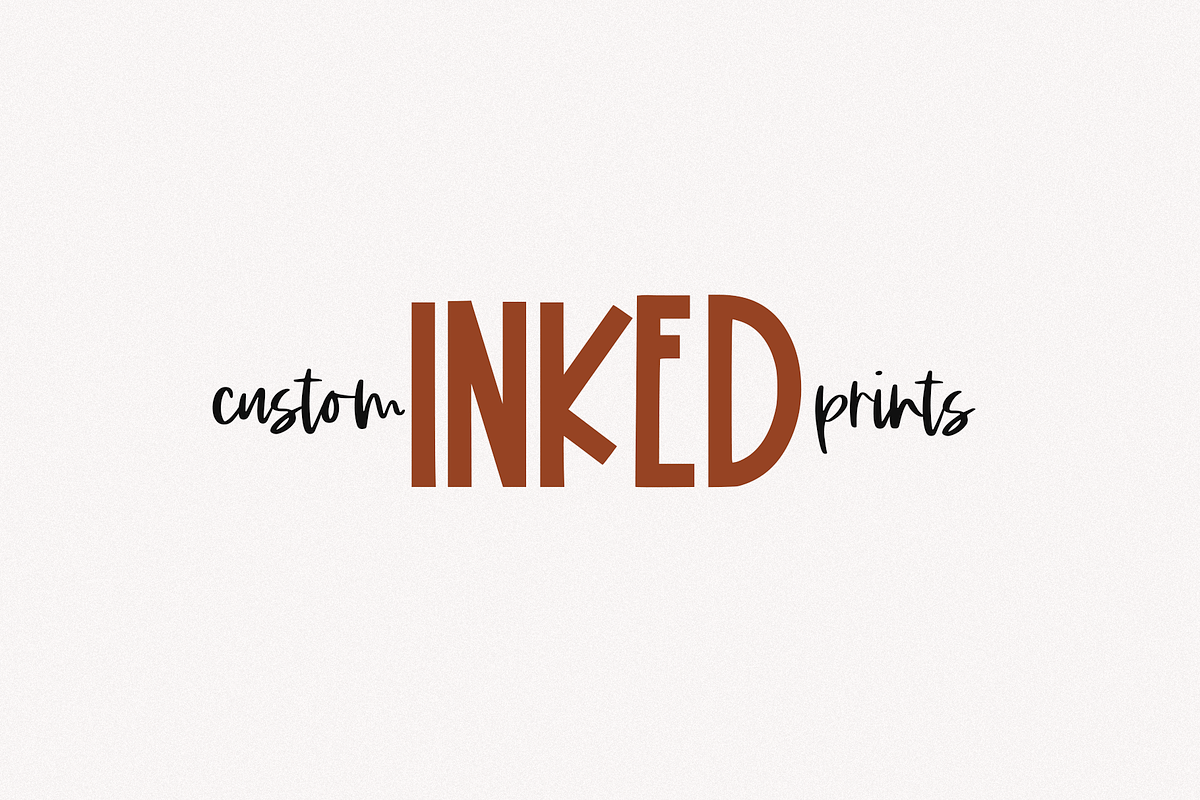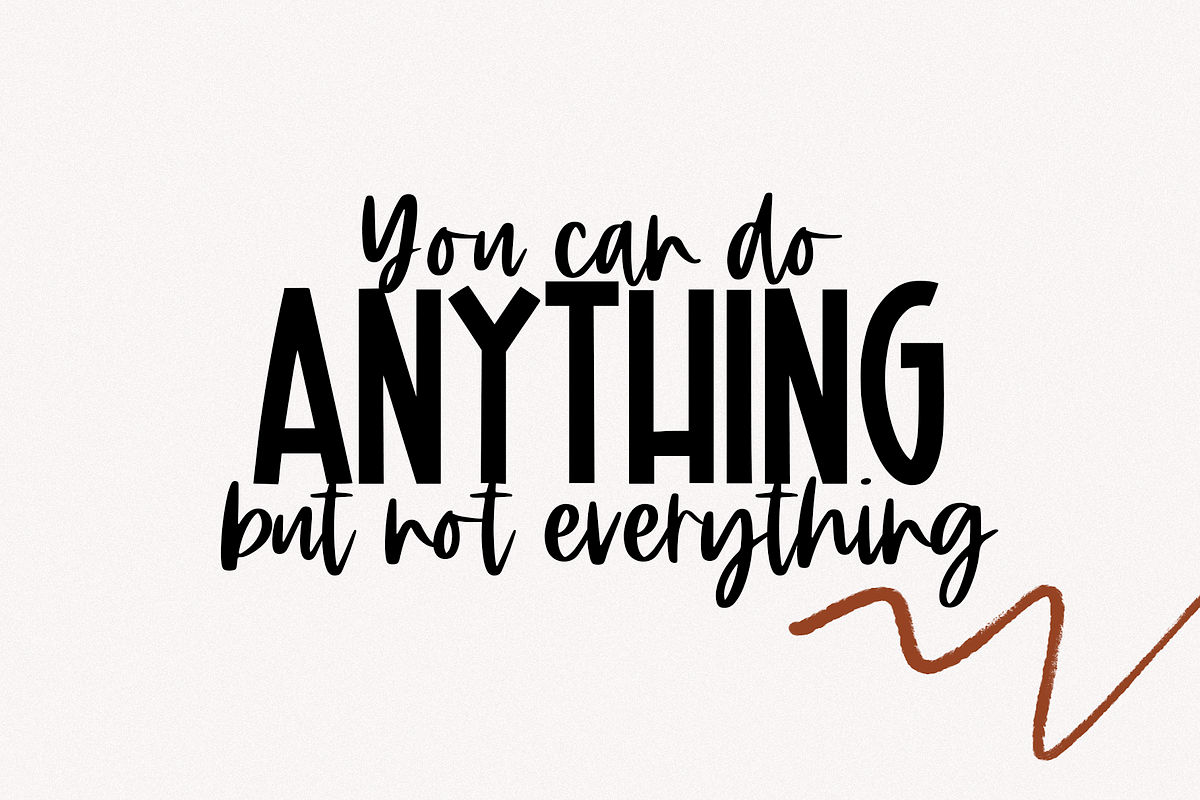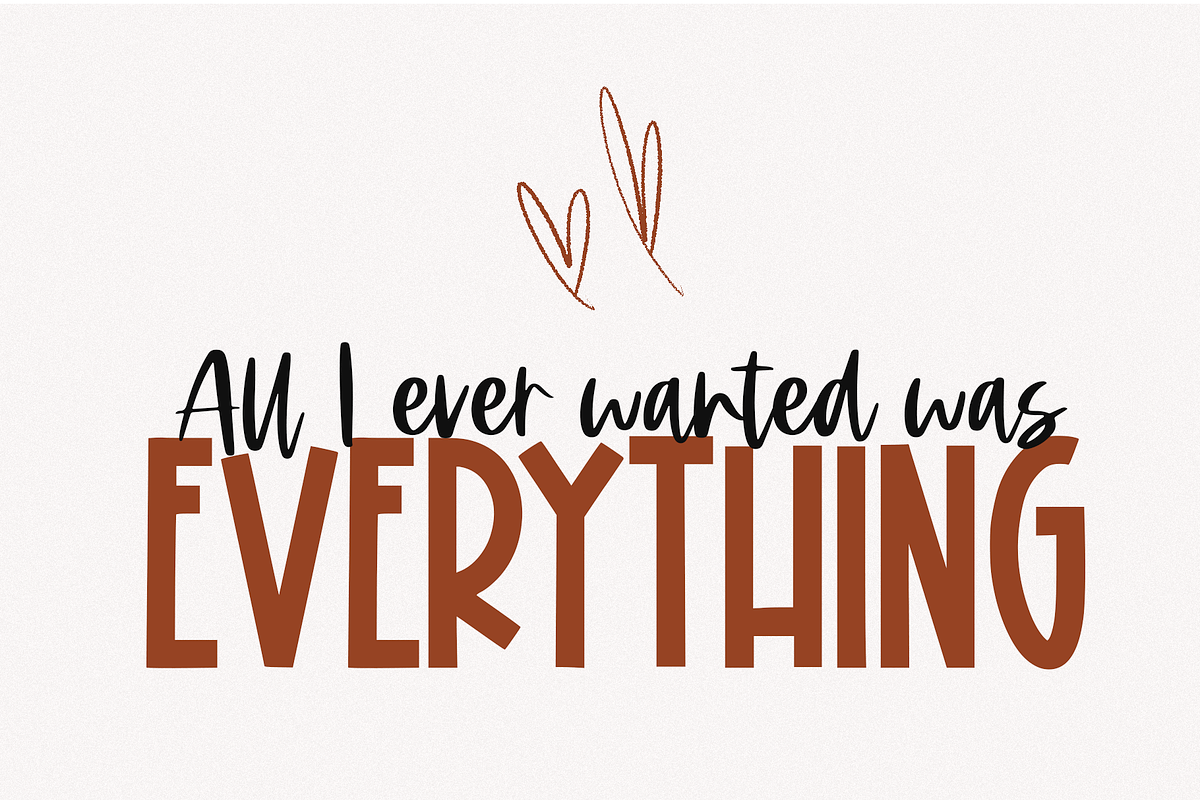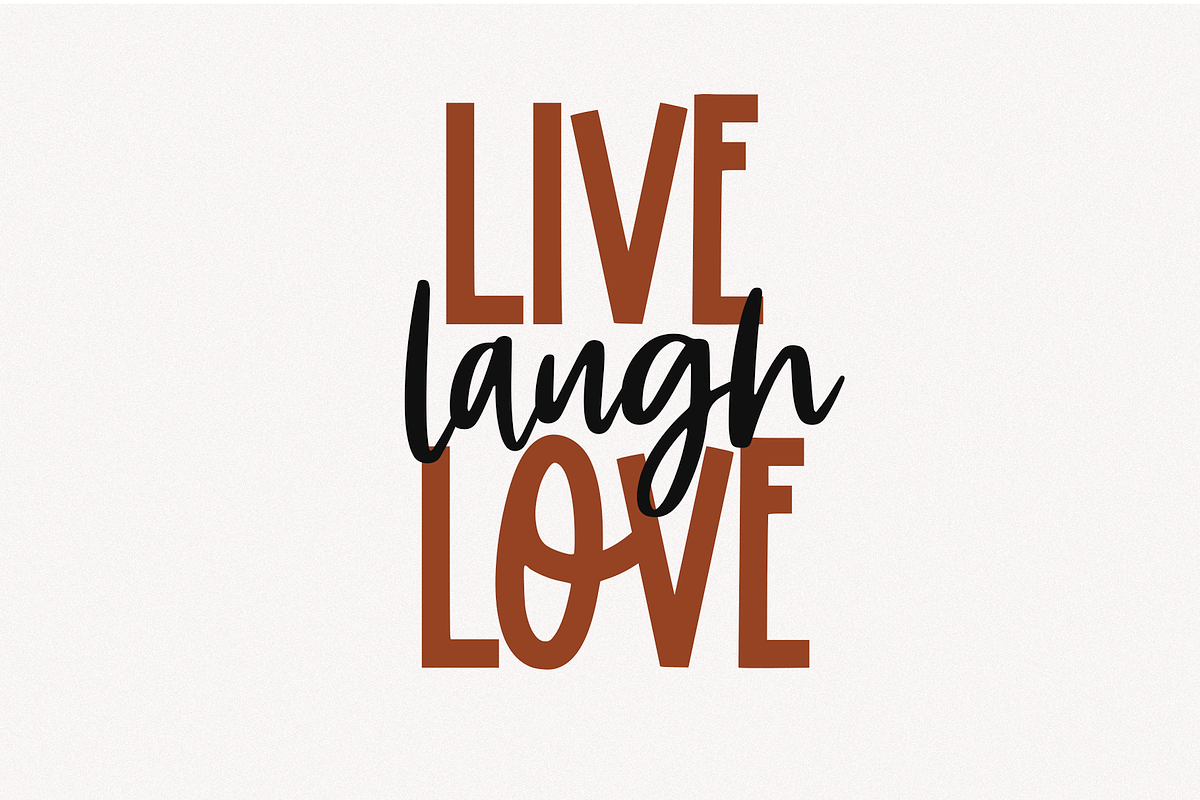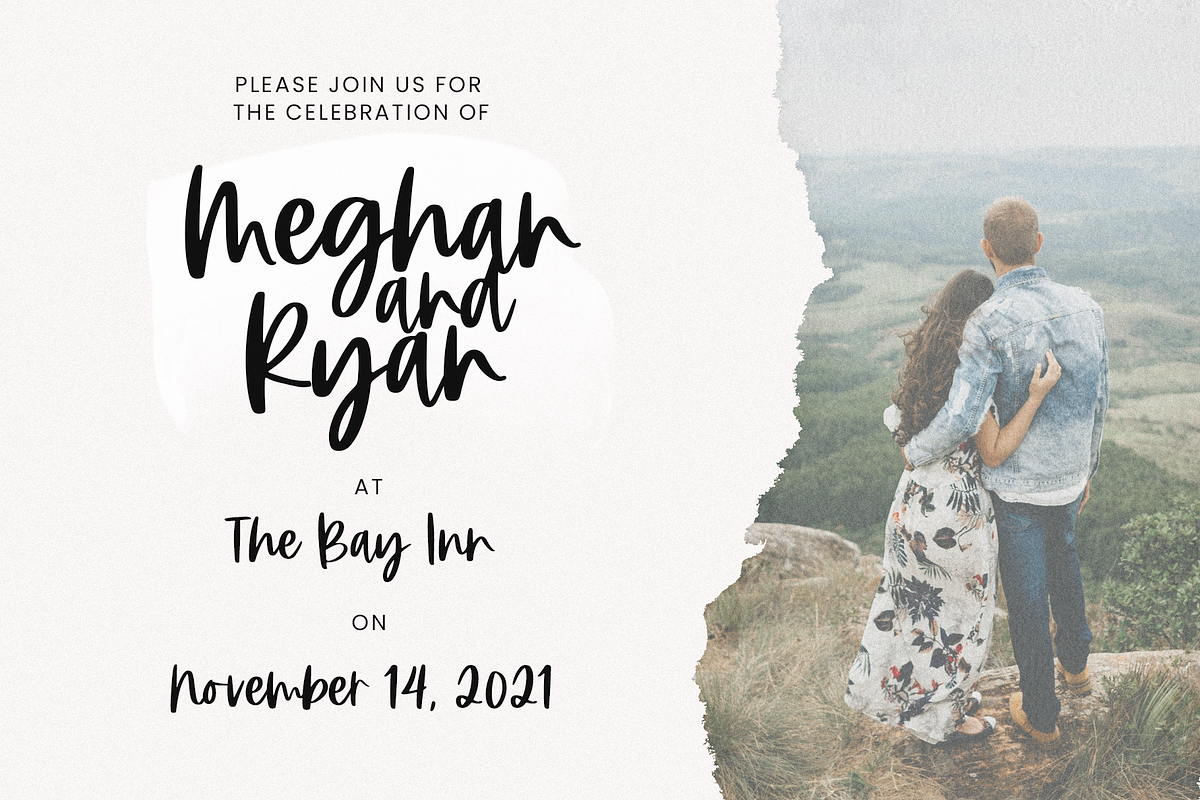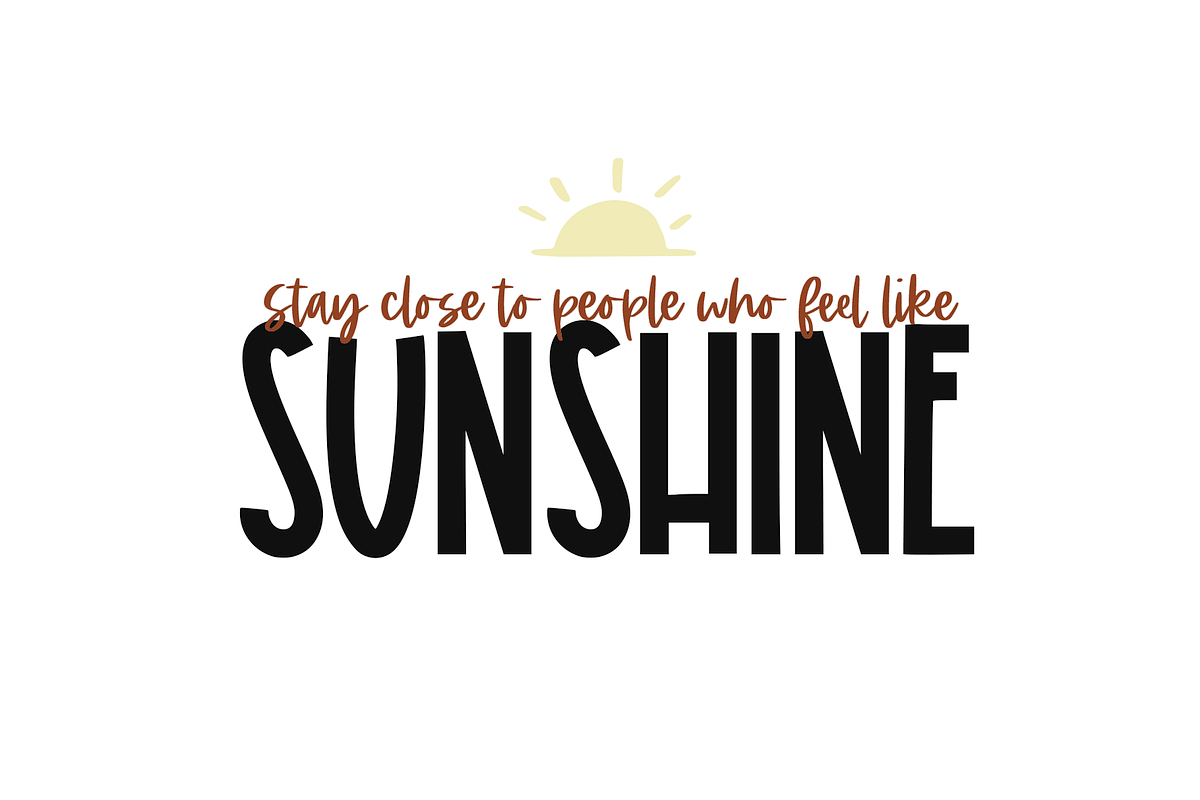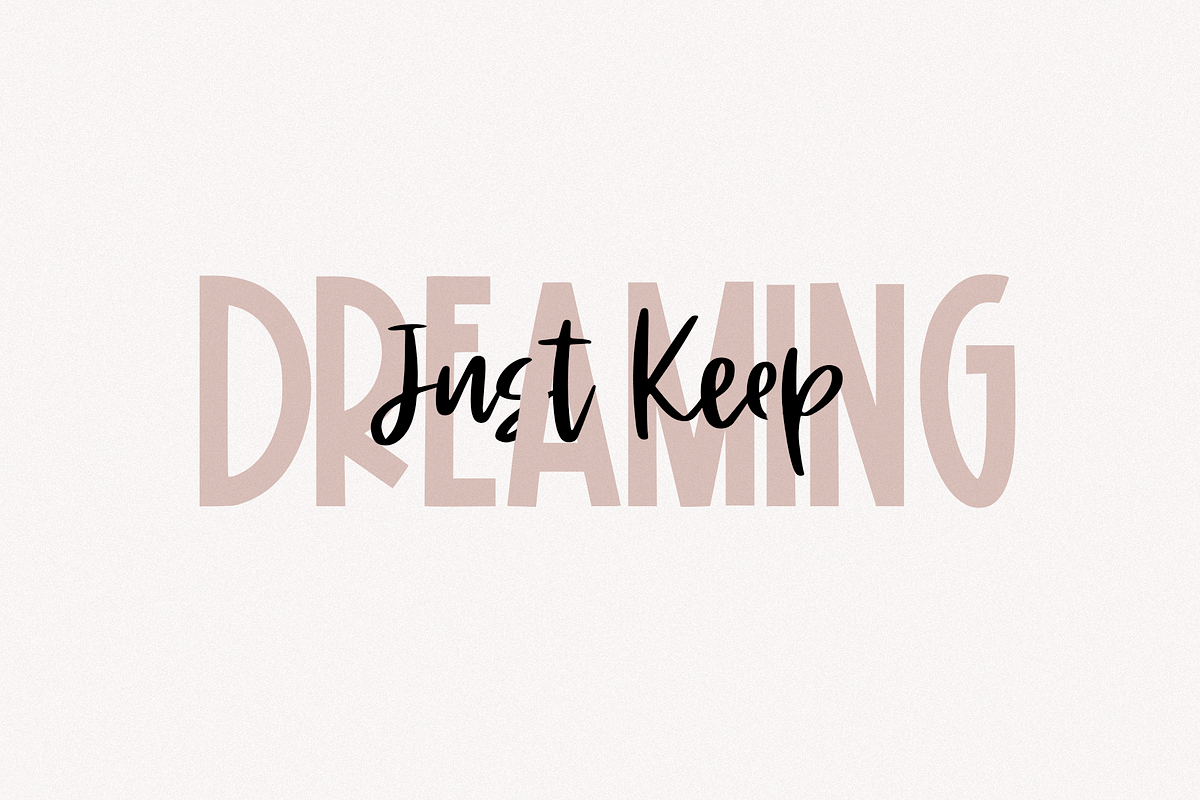
Bohemian Highway | Script Font Duo
Bohemian Highway is a handwritten font pair.
This duo is perfect for quotes, headings, blogs, logos, brandings, invitations and more!